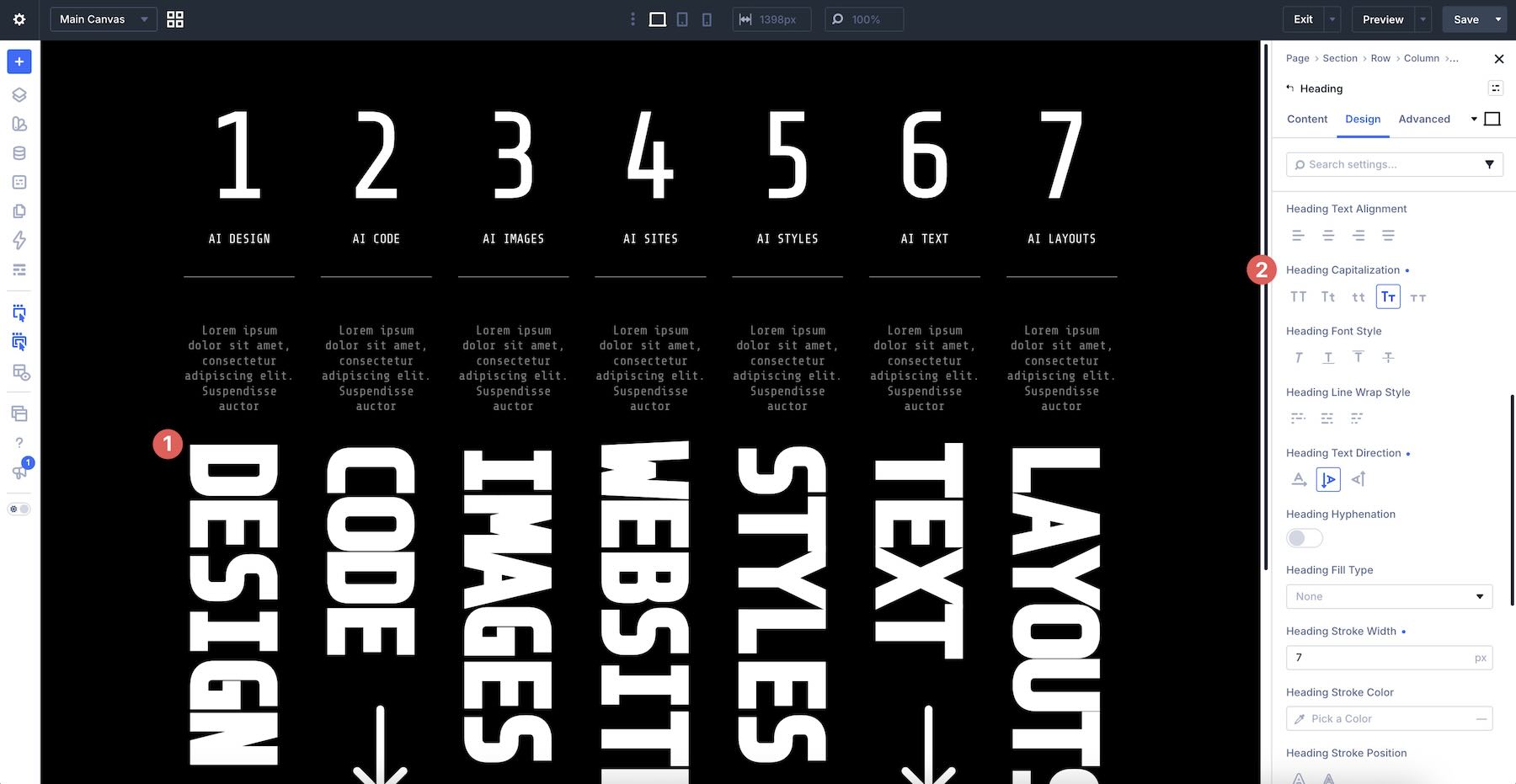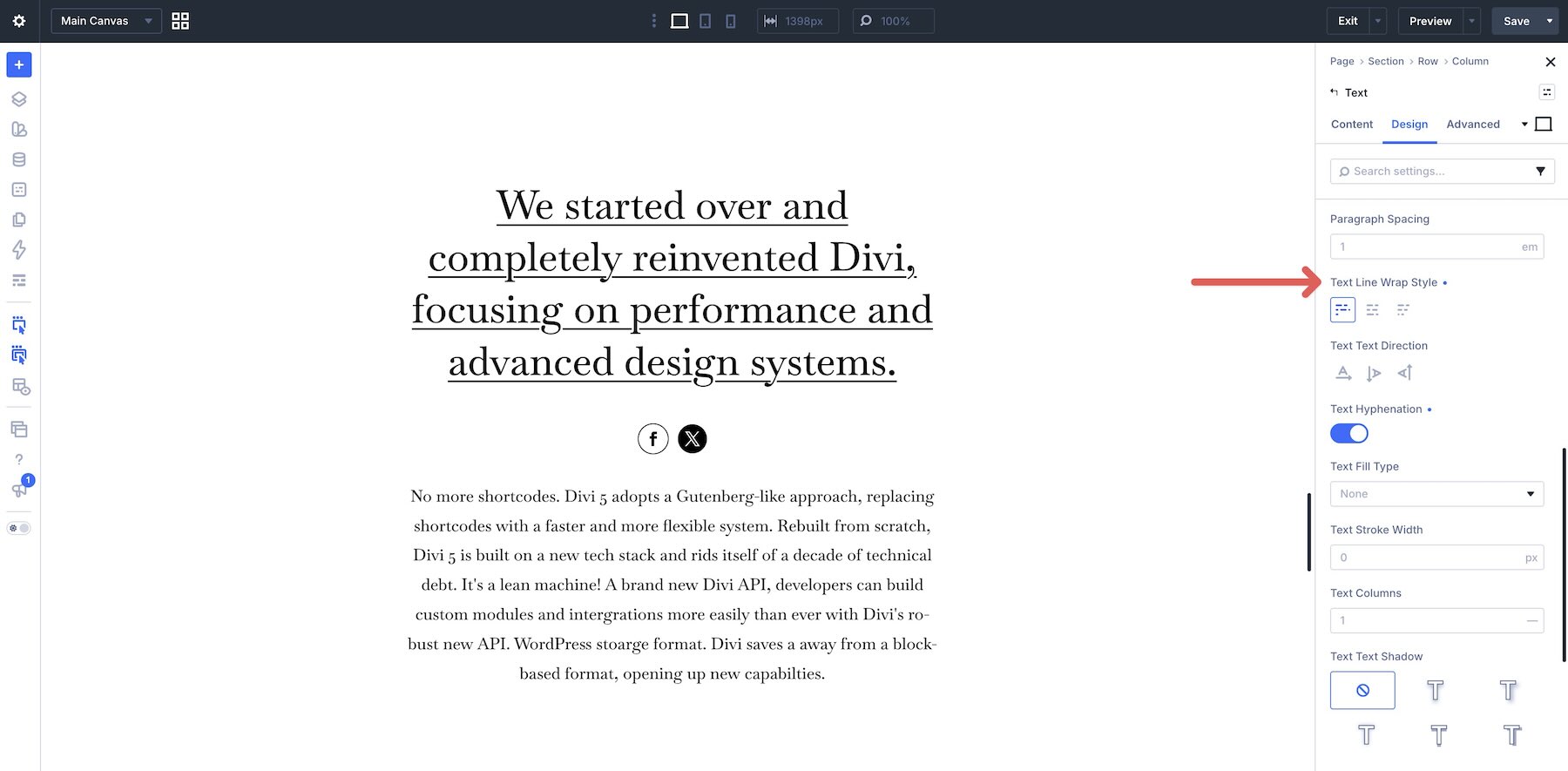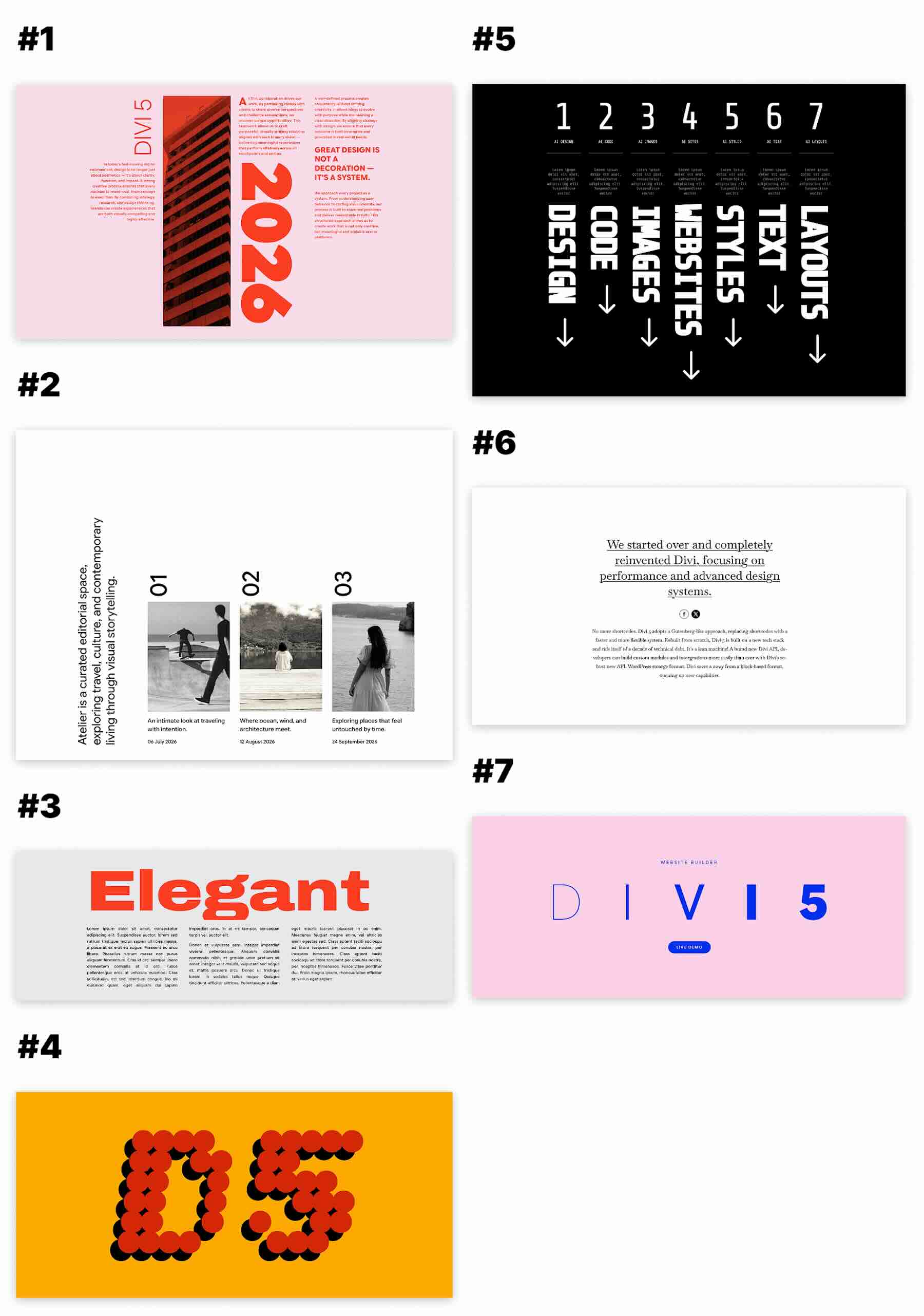
7 Variable Font Designs For Divi 5 (Free Download!)
Variable fonts make it possible to fine-tune typography instead of settling for a few fixed styles. Depending on the typeface, you can adjust Weight, Width, Slant, Optical Size, Grade, roundness, and other characteristics along a continuous range.
Divi 5 brings those controls into the Visual Builder for supported Google variable fonts. To help you explore them, we created seven free variable font section designs that you can import into the Divi Library, add to a page, and customize for your own site.
In this post, we’ll explain how variable fonts work in Divi 5, introduce the text styling options that complement them, and show you how to use the downloadable designs.
What Are Variable Fonts?
Traditional font families usually provide a fixed selection of styles, such as Regular, Medium, Bold, and Italic. Each style may be delivered as a separate font file. If the exact weight or style you need is unavailable, you have to choose the closest option or rely on a browser-generated approximation.
Variable fonts work differently. One font file can contain a range of styles controlled through axes. Each axis changes a particular aspect of the typeface. Common examples include Weight, Width, Slant, Italic, Optical Size, and Grade. Some fonts also include custom axes for characteristics such as roundness, shape, or casualness.
This additional range gives you more control over typographic hierarchy and fit. A heading that feels too heavy at 700 could work better at 640. Body text that needs more presence could use 520 instead of jumping to the next fixed weight.
Some fonts also include an Optical Size axis. When supported and enabled, it allows the typeface to adjust its letterforms for different text sizes. Smaller text can become sturdier and easier to read, while display text can gain more detail and contrast.
A variable font can sometimes replace several static font files and reduce the number of font files a design needs. That does not automatically make every variable font setup smaller or faster, however. The result depends on the font file, the axes included, and which static styles it replaces.
How Variable Fonts Work In Divi 5
Divi 5 makes variable font axes available inside the Visual Builder. Choose a supported Google variable font, and Divi reads the font’s available axes and displays the matching controls in the relevant text option group under the Design tab.
The available controls depend on the font. A simple variable font may expose only a Weight axis. A typeface such as Roboto Flex can provide controls for Weight, Width, Slant, Optical Sizing, Grade, and several other axes. Divi shows only the controls supported by the selected font.
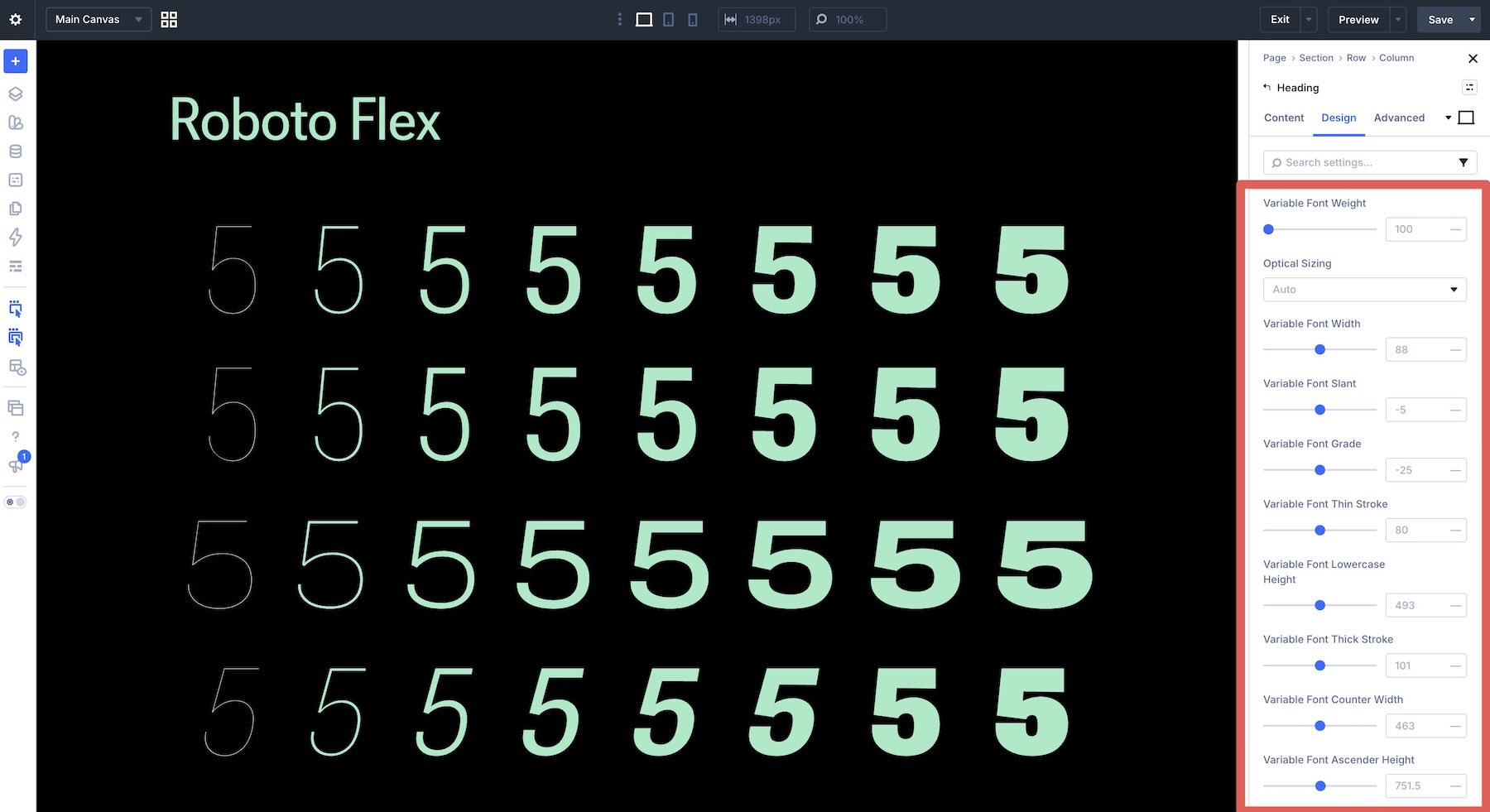
You can use Font Variables, part of Divi’s Design Variables system, to manage the font family itself. Define a heading font, body font, or another reusable font choice in the Variable Manager, then reference it across modules and Presets. If you change that Font Variable later, every element that references it can inherit the new font family.
Font Variables do not store a complete set of variable font axis values. To reuse a combination of Weight, Width, Slant, and other typography settings, save those settings in a Preset.
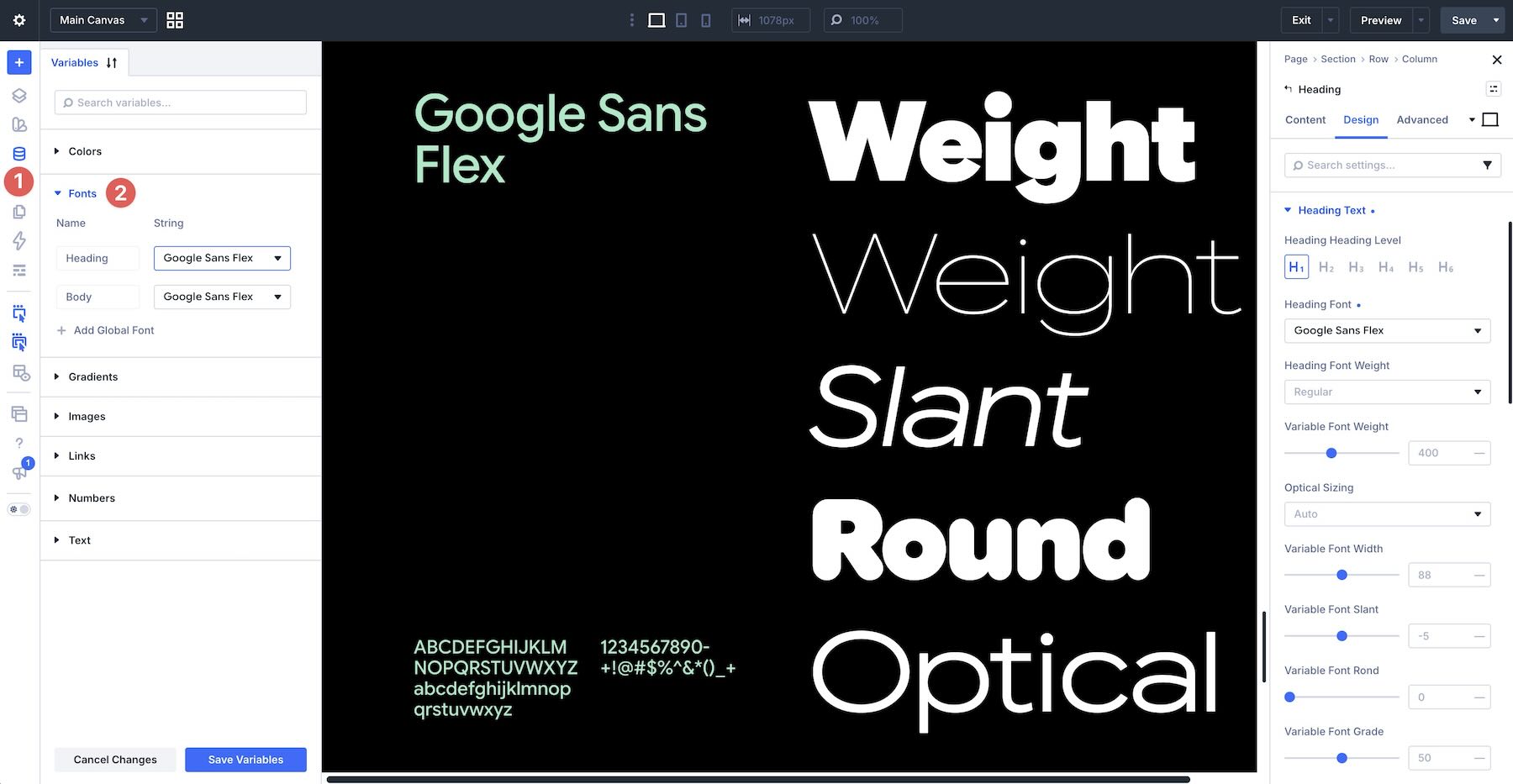
The Google Fonts website is a useful place to find variable fonts. Apply its variable fonts filter to narrow the library to typefaces with one or more variable axes.
Open a font’s detail page before choosing it for a project. The page lists the axes and ranges the font supports, which can differ significantly from one typeface to another.
Note: The Divi 5 font picker does not include a dedicated variable font filter. Select a supported Google variable font as you would any other font, and Divi will display the axes that font provides.
Pair Variable Fonts With Divi 5’s Text Styling Options
Variable font axes change the construction and appearance of a typeface. Divi 5’s text styling options control how the text sits, flows, and wraps within a layout. These features work with any font, but they give variable typography even more creative range without requiring custom CSS.
Here is a closer look at the options introduced alongside Variable Fonts.
Text Columns
Text Columns split a block of copy into magazine-style CSS columns without requiring separate Text Modules. The content flows naturally from one column to the next, and you can change the number of columns at different breakpoints.
Use the Text Column Gap field to adjust the space between columns. Its default unit is em, and the field also supports Divi 5’s Advanced Units.
Drop Caps
The Drop Caps tab in a body text option group lets you style the first letter of a text block. You can set its line size and spacing, then use the available text settings to shape the treatment. The surrounding copy wraps around the enlarged letter automatically.
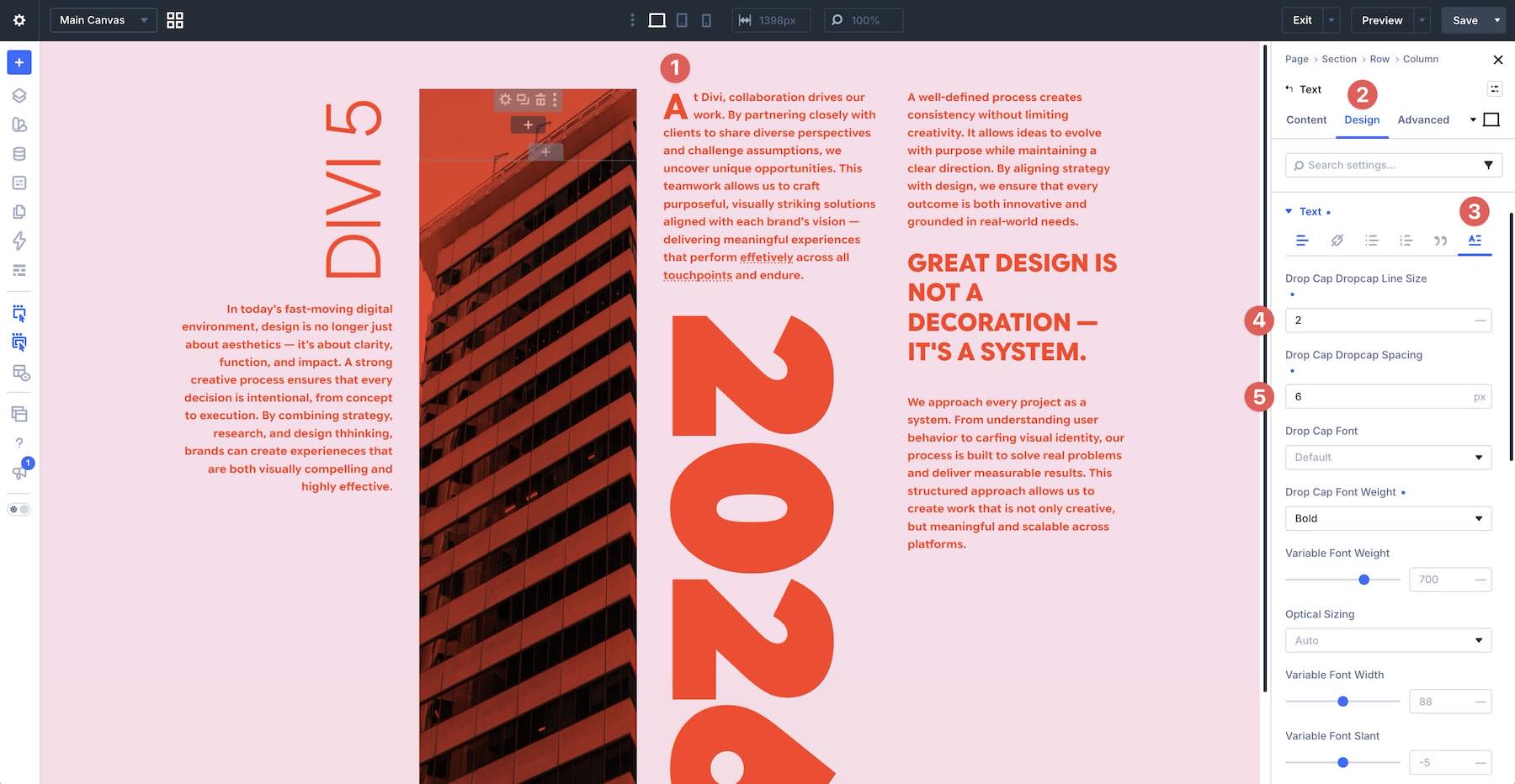
Download the free pack and open the sections in the Visual Builder to see how those controls work together. Use a Font Variable to manage the font family, Presets to reuse complete typography treatments, and Number Variables to build a consistent sizing system. With a small set of intentional values and a responsive review, the designs can become a practical starting point for a broader site-wide type system.